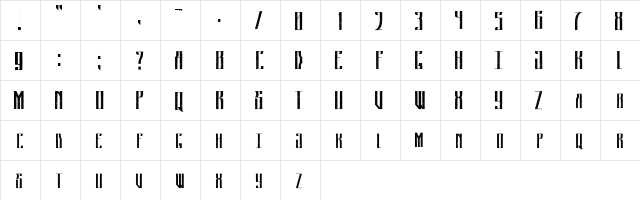
Johny Strocker Rough Regular
| Foundry | Slava "Designvamp" Krivonosov |
| Designer | Slava "Designvamp" Krivonosov |
Design Context for Johny Strocker Rough Typeface
Johny Strocker Rough trades polish for personality, using distressed and eroded forms to bring grit and attitude to creative work.
Suited to punk-influenced zines, underground music branding, streetwear, and raw, anti-corporate design.
Pro Tip: Pair Johny Strocker Rough with intentionally raw or lo-fi design elements. Fighting against it with overly polished surroundings will undermine its personality.